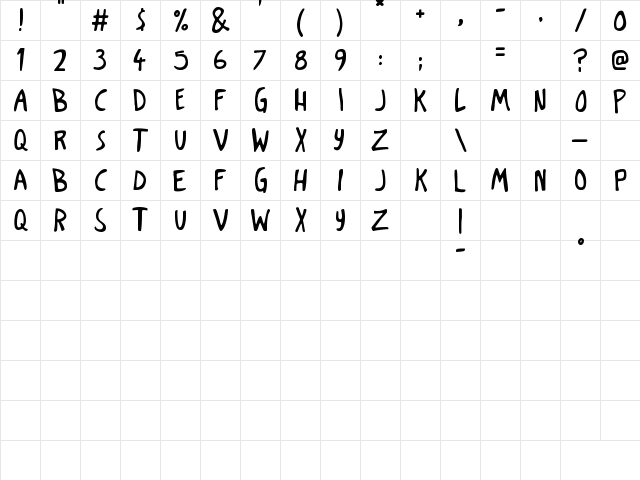
Dark Poestry Regular
Design Context for Dark Poestry Typeface
Dark Poestry is a composed and adaptable typeface that performs quietly and consistently across a wide range of design contexts.